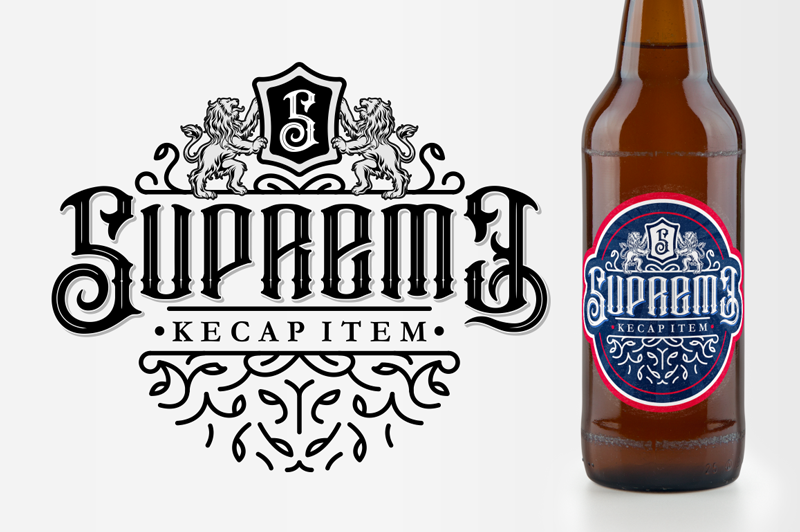
Barakah Typeface
Introducing our very first font ever made. It’s called Barakah Typeface , a multi-layered victorian font ( Regular – Inline – Inner Shadow – Drop Shadow ). This font inspired by Vintage Design ( especially from Tattoo Label and Vintage Signage ) .